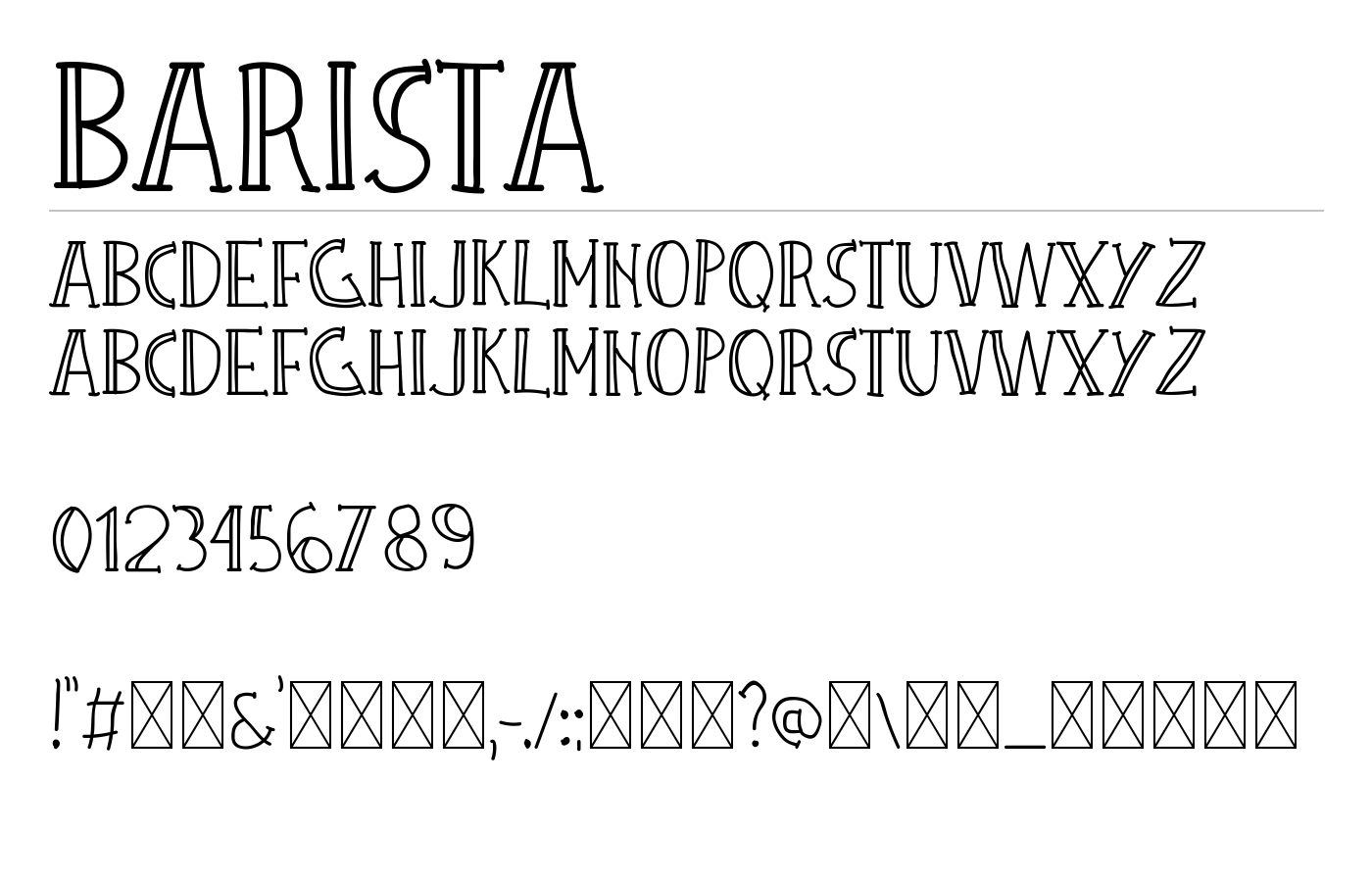
Barista is a playful and slender serif font that features tall, narrow letterforms with delicate, irregular strokes giving it a hand-crafted, artistic feel. Its unique charm comes from quirky details like the uneven serifs and whimsical curves, making it ideal for creative branding, invitations, or headlines where a friendly, vintage-inspired personality is desired. This font works best in designs that want to convey a casual yet elegant touch with a touch of individuality.
Barista Font
About Barista Font